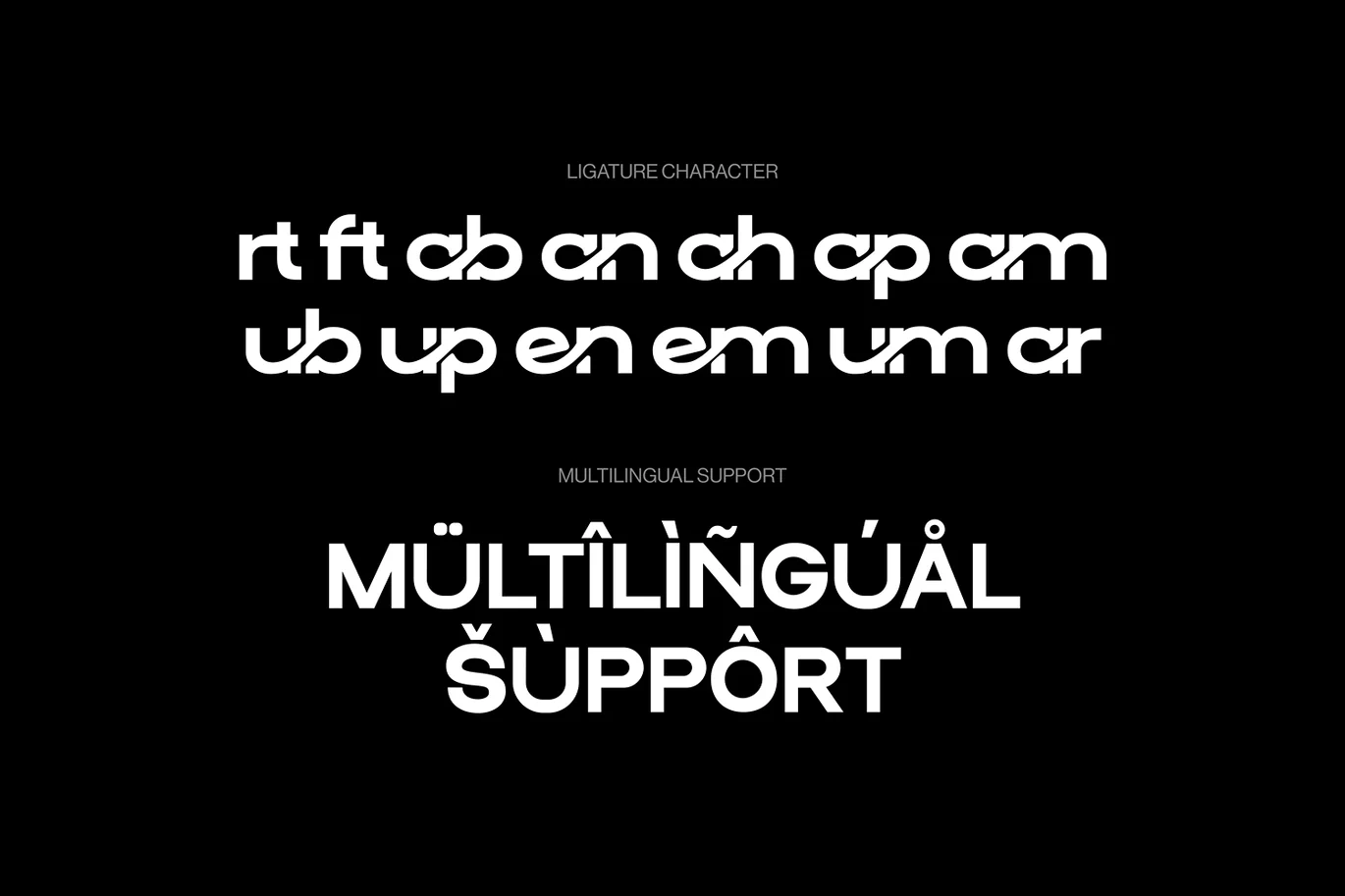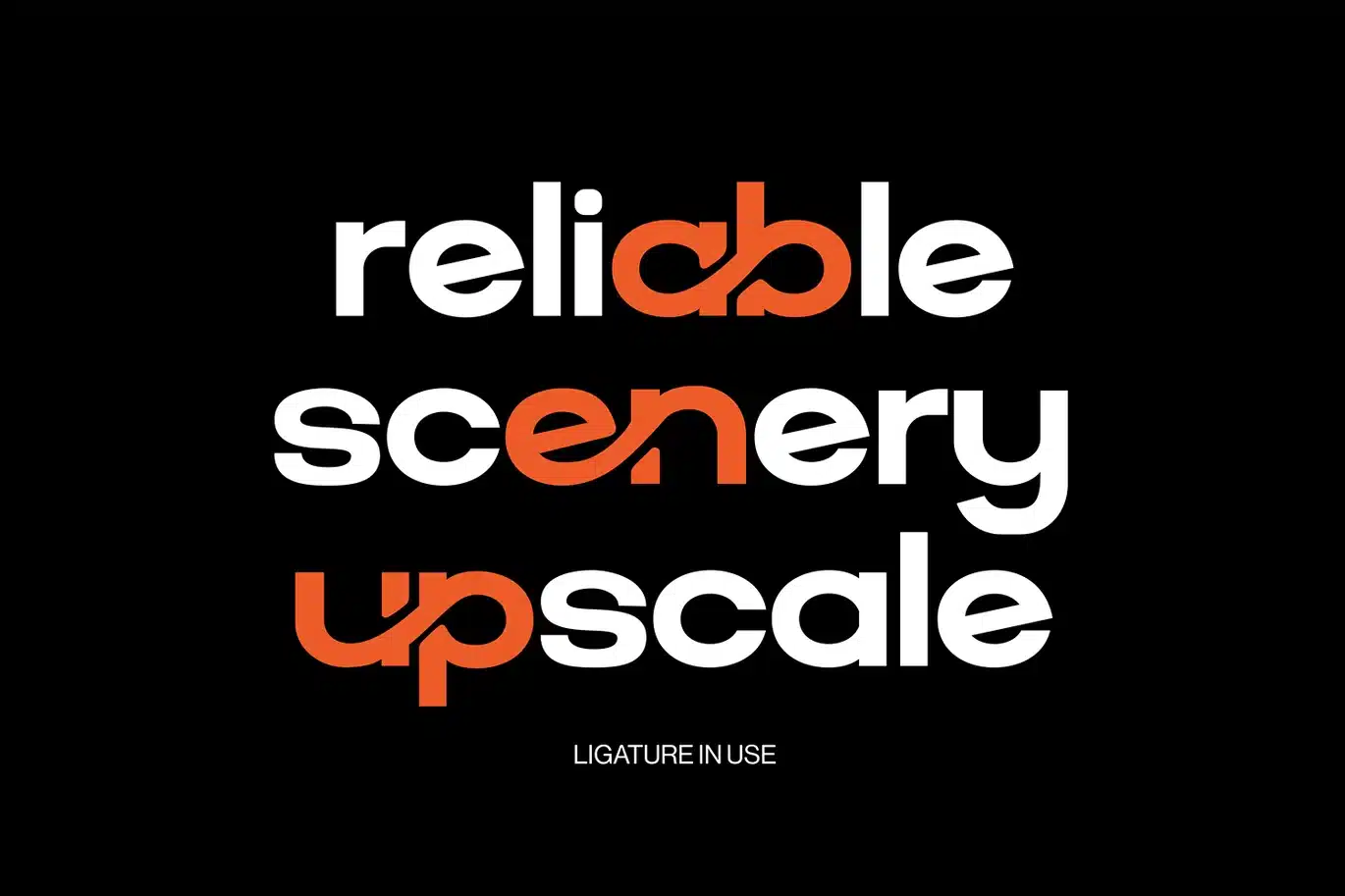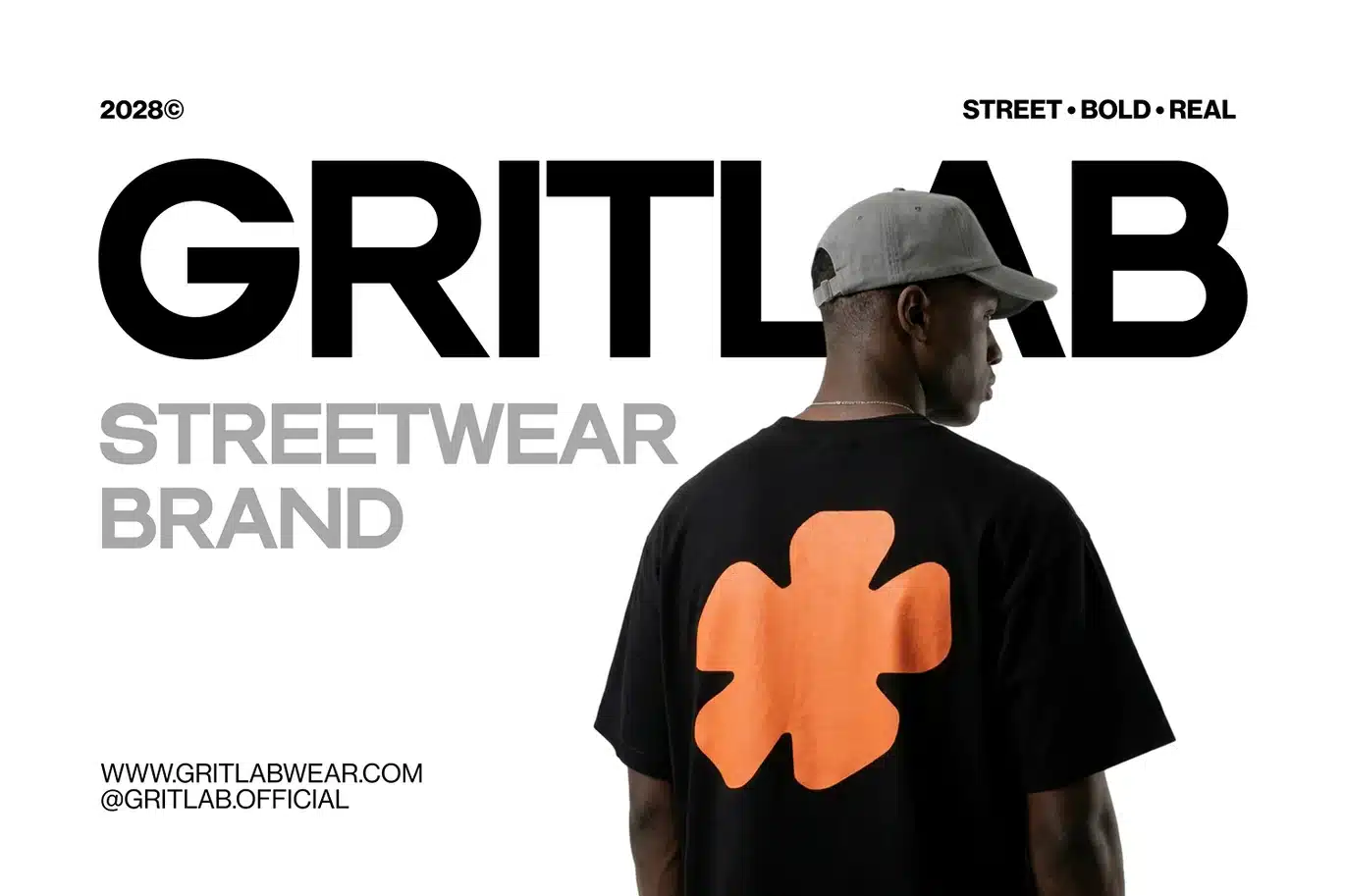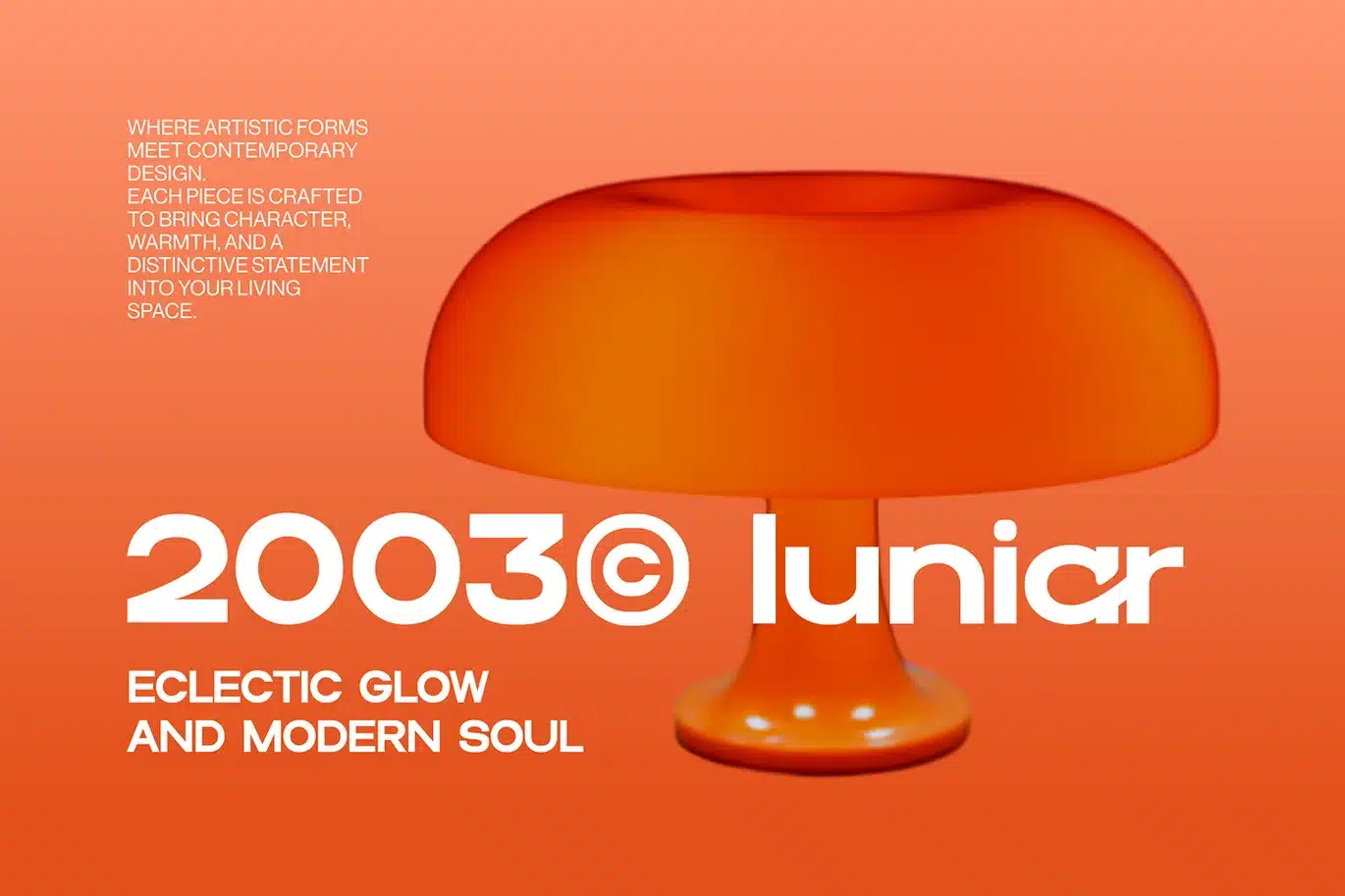
Soiren – Logo Font
Soiren font is a modern and elegant display typeface designed with a clean and minimal approach, making it perfect for logo creation and contemporary branding. Inspired by the timeless clarity of helvetica, montserrat, and futura, this font delivers a smooth geometric structure with subtle personality. Its balanced form allows it to adapt seamlessly across fashion, corporate, and creative industries, giving every design a refined and professional look.
With its versatile character, Soiren font works beautifully for both structured corporate layouts and more playful kids-oriented concepts. The minimal and clean design ensures strong readability while maintaining a stylish display presence, making it ideal for modern logos, branding systems, and visual identities. Whether used in bold statements or subtle compositions, Soiren stands out among modern fonts as a reliable choice for elegant and impactful design.